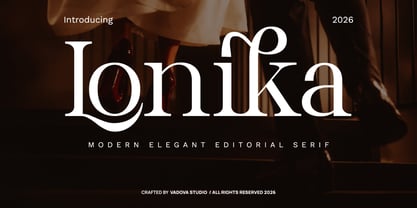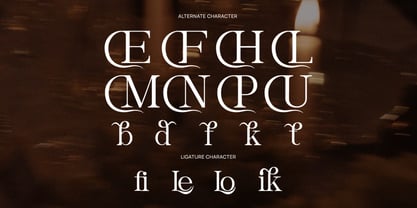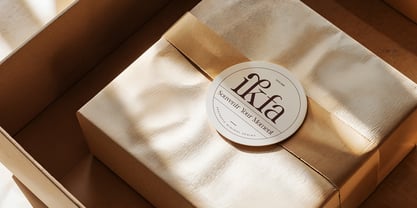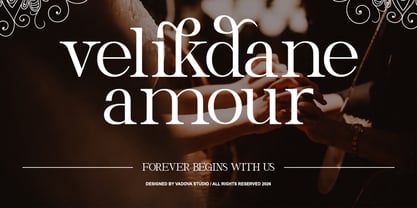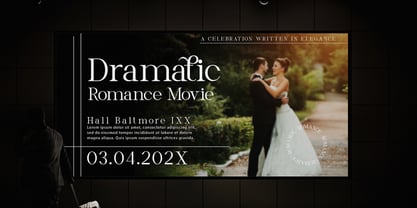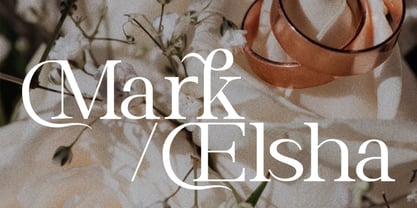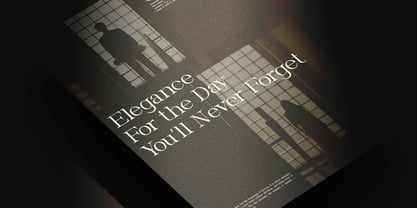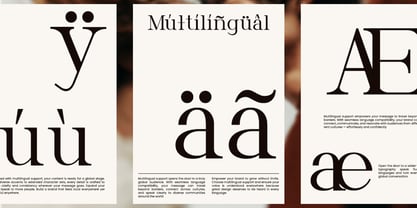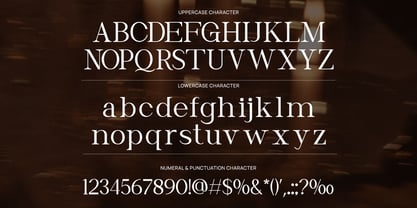
Lonika
by Vadova Std
Lonika is a modern elegant editorial serif typeface designed to bring sophistication, grace, and contemporary refinement into luxury design projects. The font blends classic serif elegance with modern proportions, resulting in a refined typeface that feels both timeless and fashionable. Lonika is designed for projects that require elegance, sophistication, and a refined editorial look. It works beautifully for fashion magazines, luxury branding, high-end packaging, beauty product design, editorial layouts, stylish logos, and modern marketing materials.